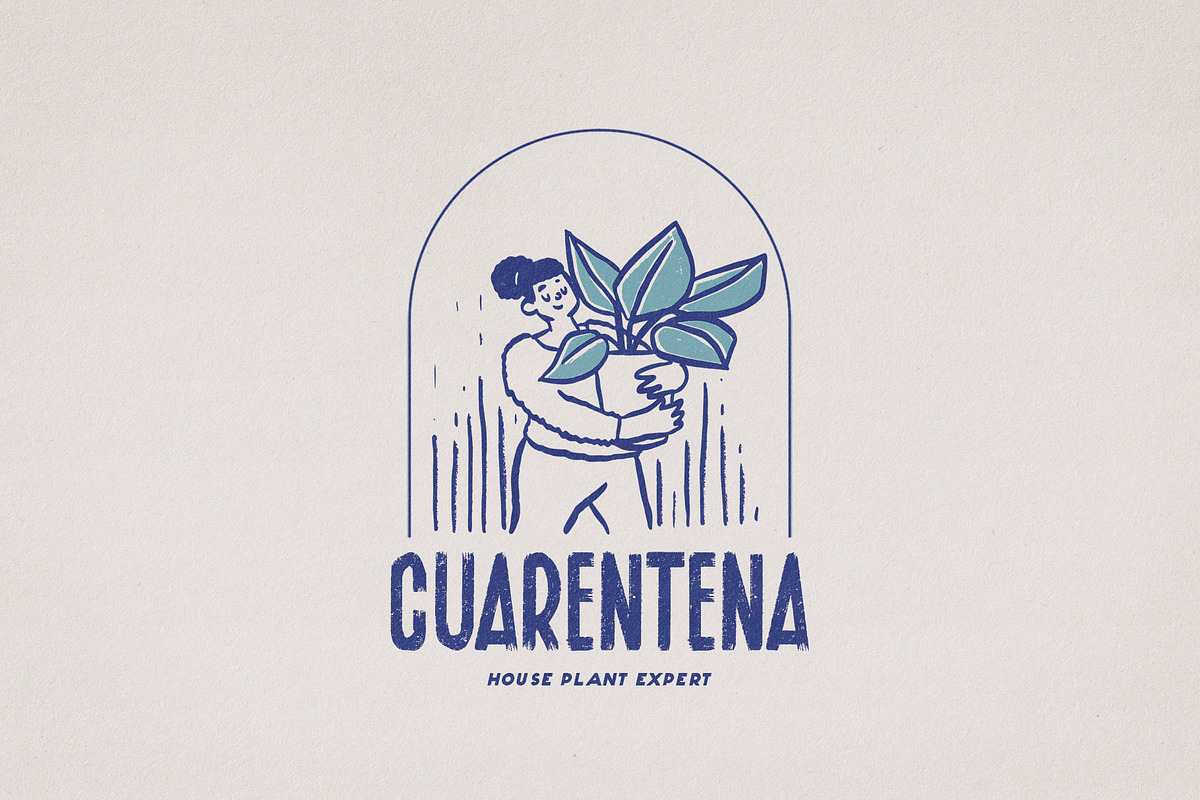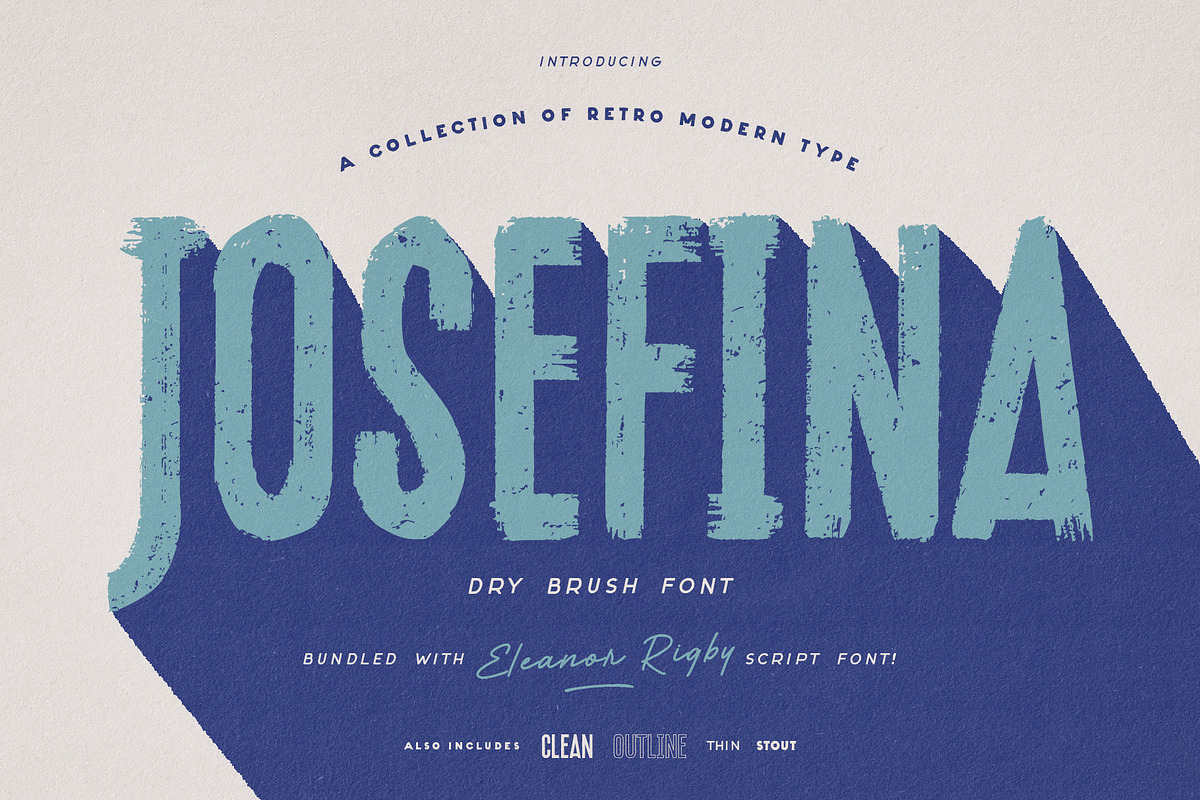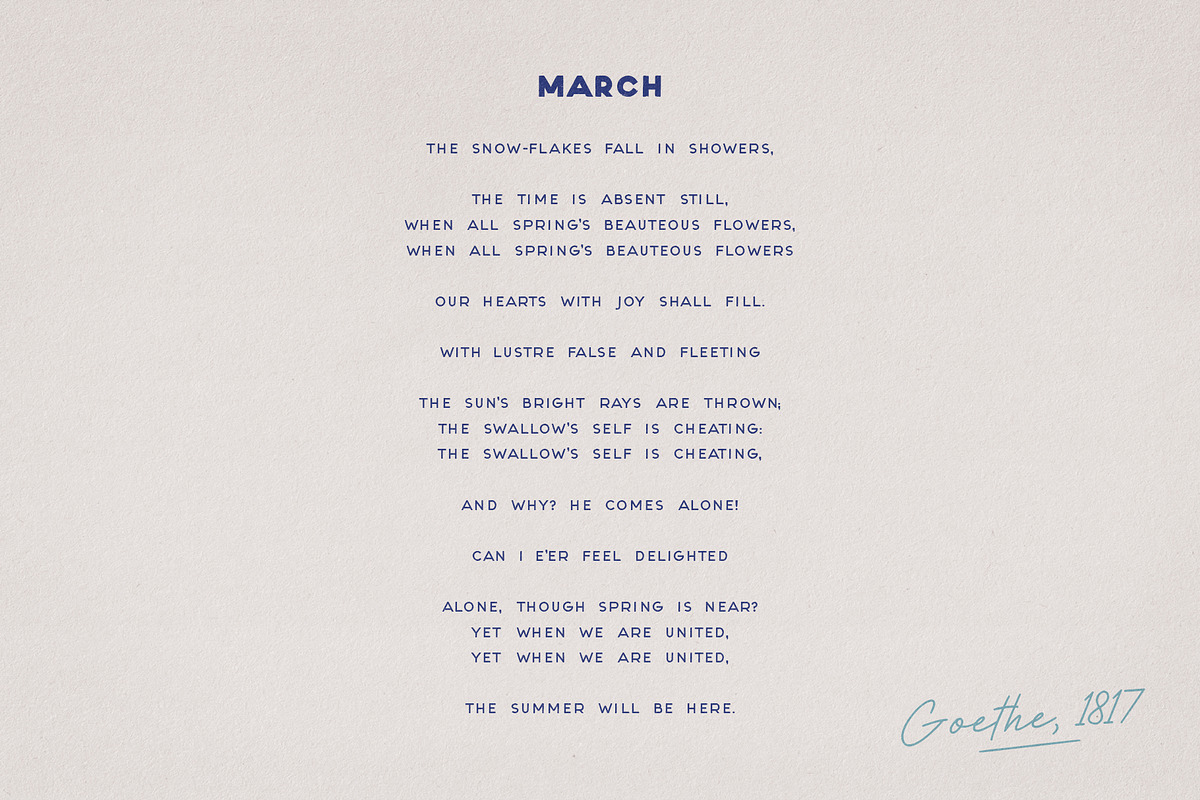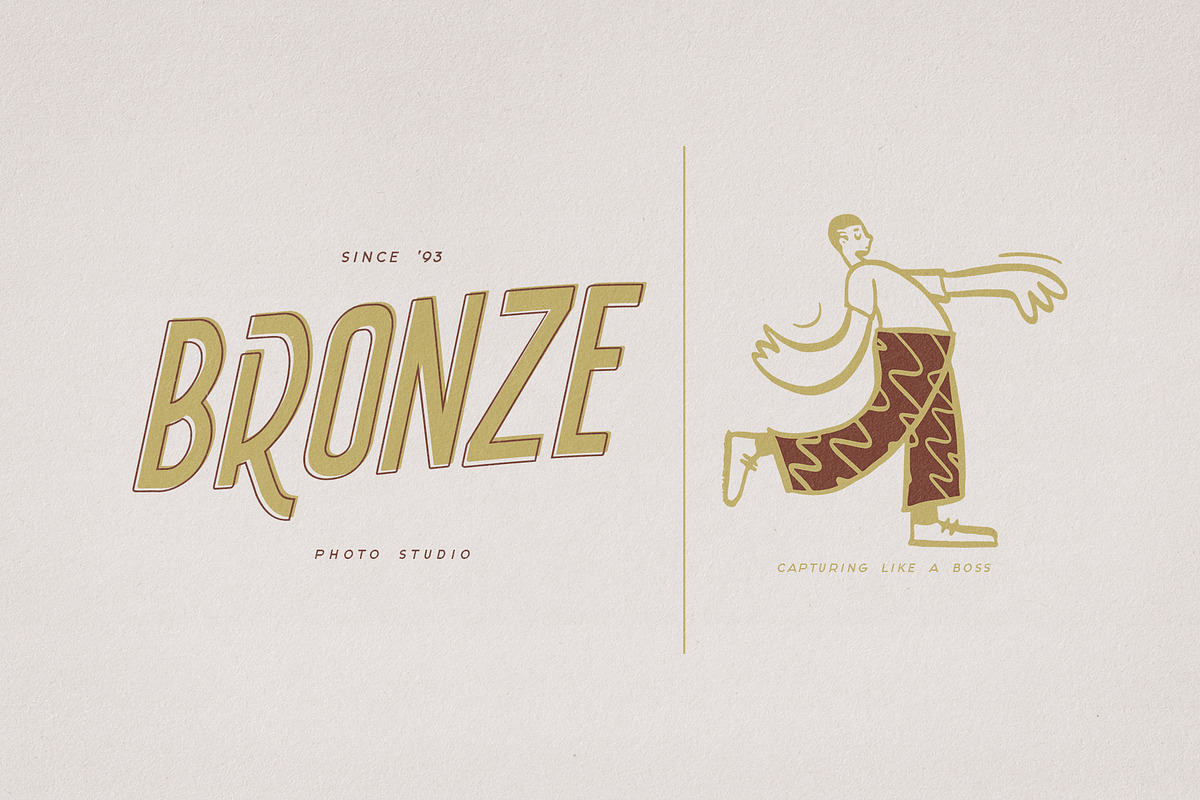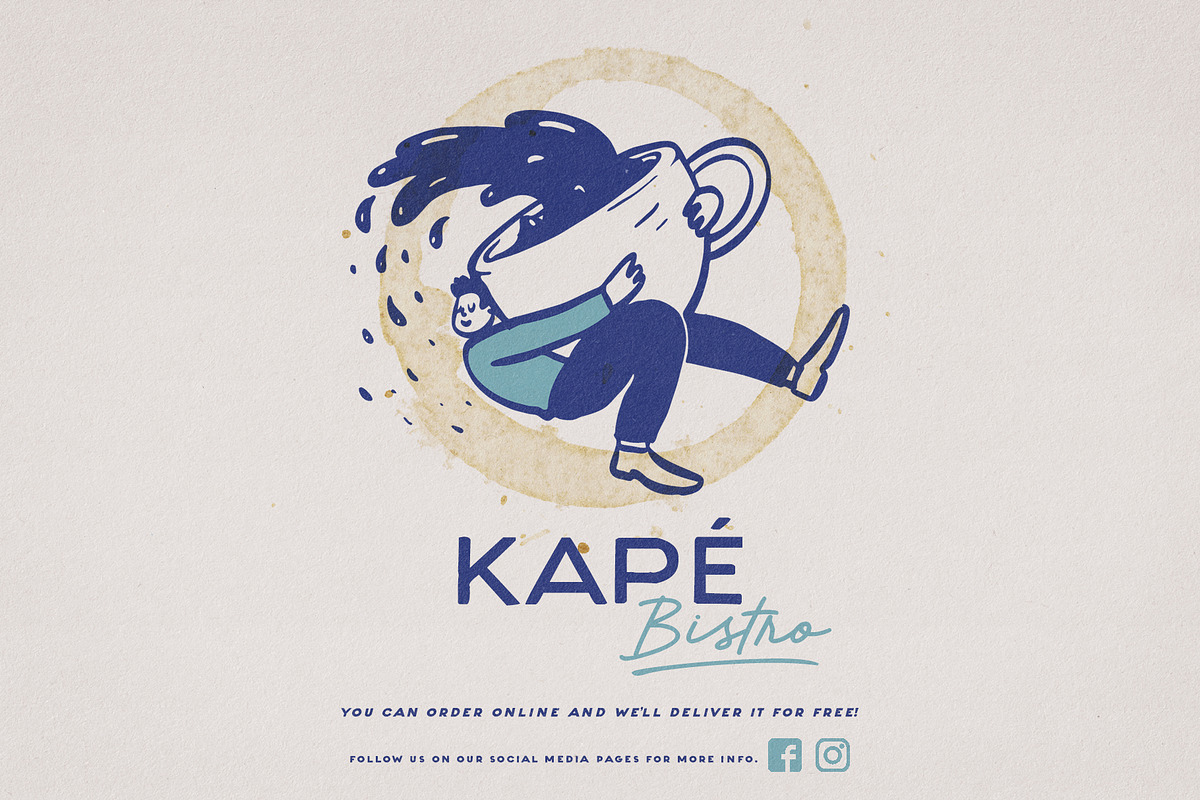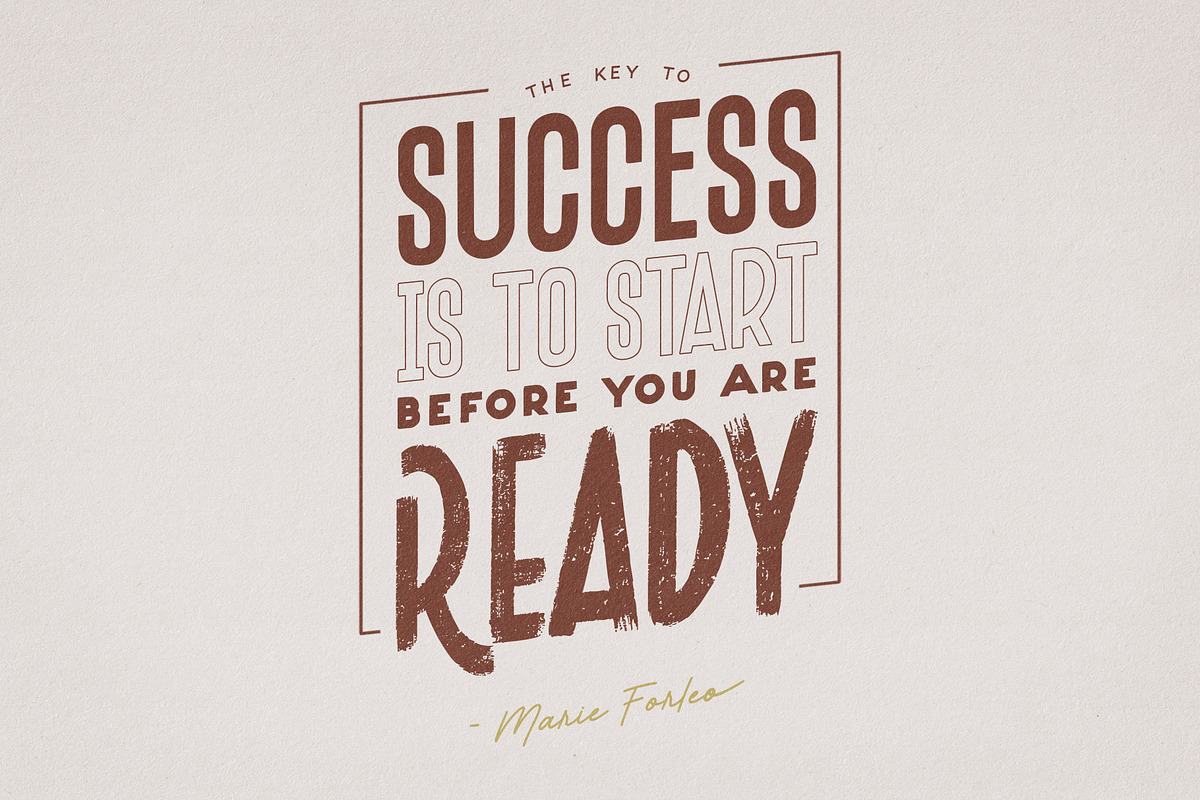
Josefina | Retro Modern Type Bundle
I want you to meet the Josefina Family!
Josefina is a bold, rough, and textured dry brush font inspired from the golden age of hand painted chaotic posters and banners. This font is reimagined in use for modern minimalist designs. It's an all caps font but the uppercase and lowercase letters is painted differently to give a more authentic handpainted style.
This font also includes a cleaner version that is best for retro modern designs! Josefina Clean and Josefina Outline.
Josefina doesn't only come in one retro style but it also includes fonts that can be used perfectly as headers and/or subheaders.
Josefina Stout is a shorter and much weighted font that can be used for slogans or anything that could complement the tall Josefina font. It can also be used as a stand-alone font for logos and/or titles.
Josefina Thin is obviously a much thinner font. It is somewhat the same size as Josefina Stout but is weighted less. Also ideal for slogans and/or logos and a text font for websites or minimalist kind of graphic designs. It's also best for books that are vintage in aesthetic because of its handwritten look.
All font styles have an italic option.
And for an added bonus, the Josefina font is bundled with the Eleanor Rigby Script Font! A modern retro script font inspired from the 80s!